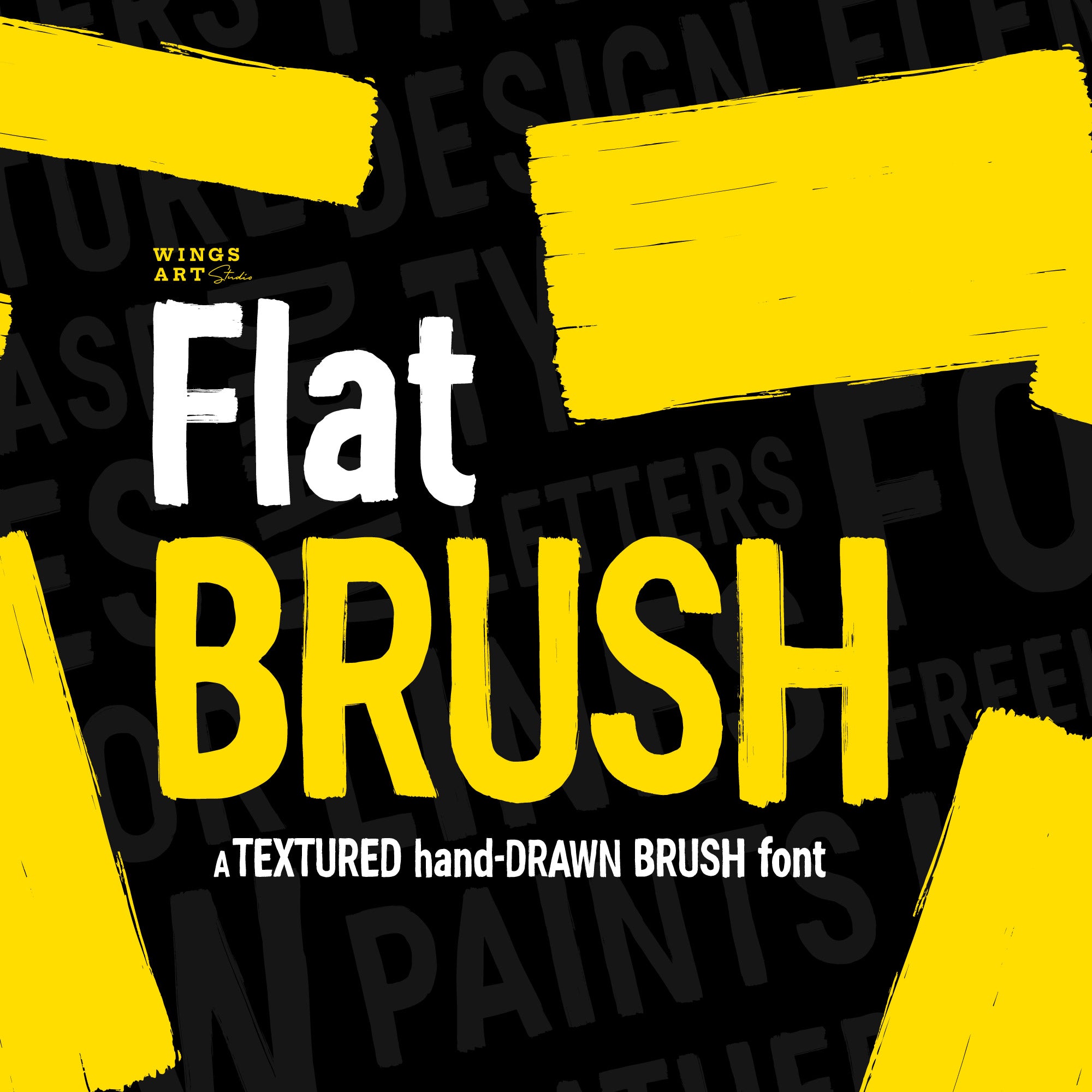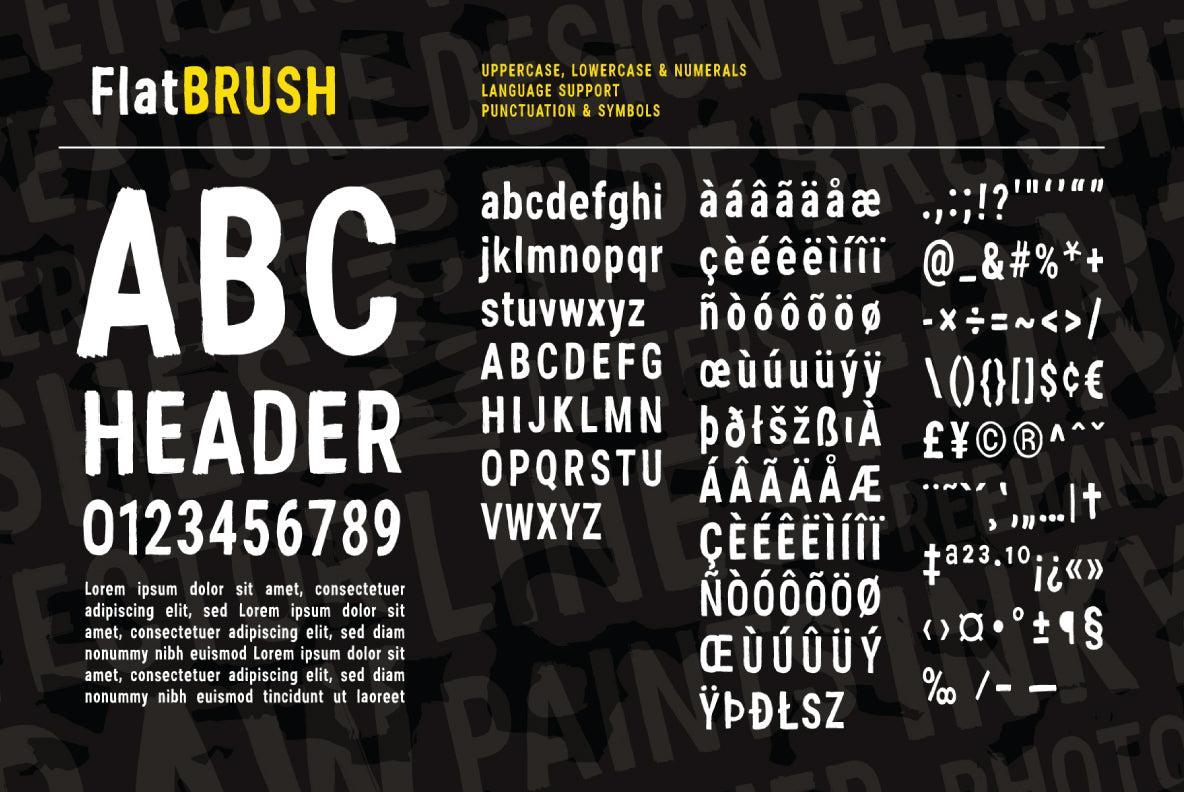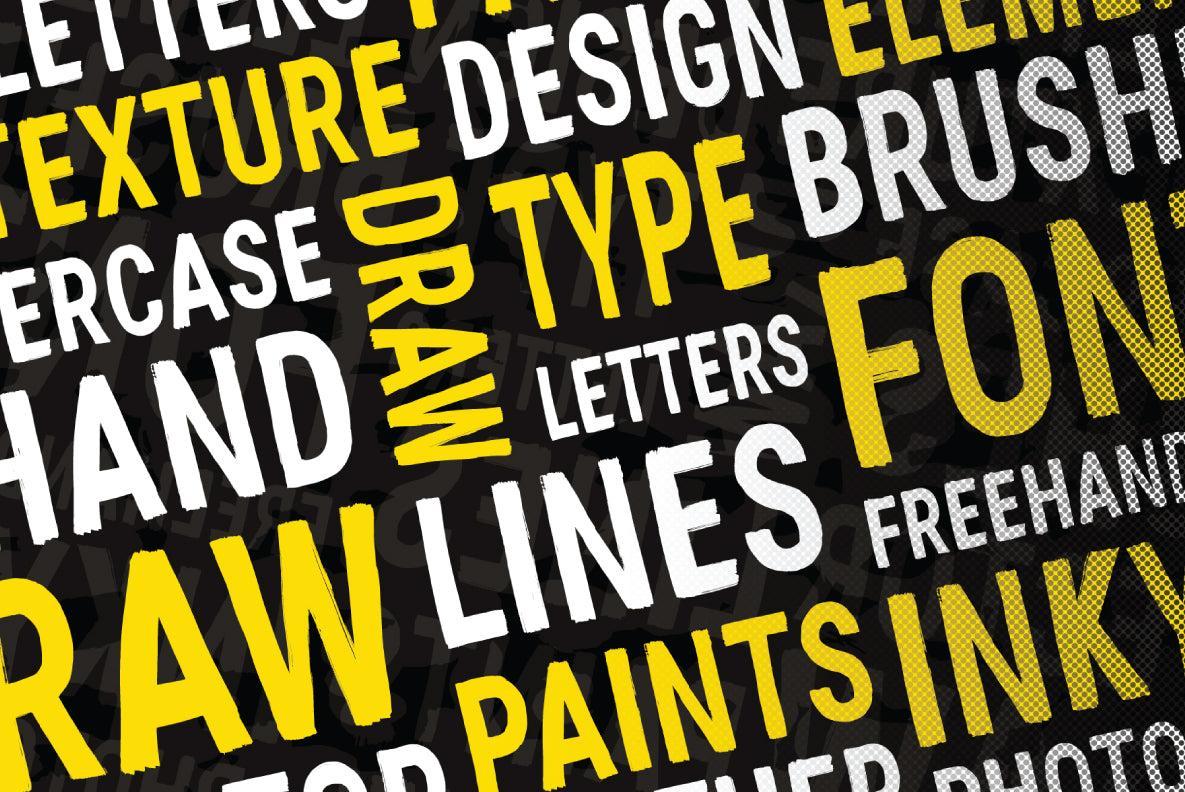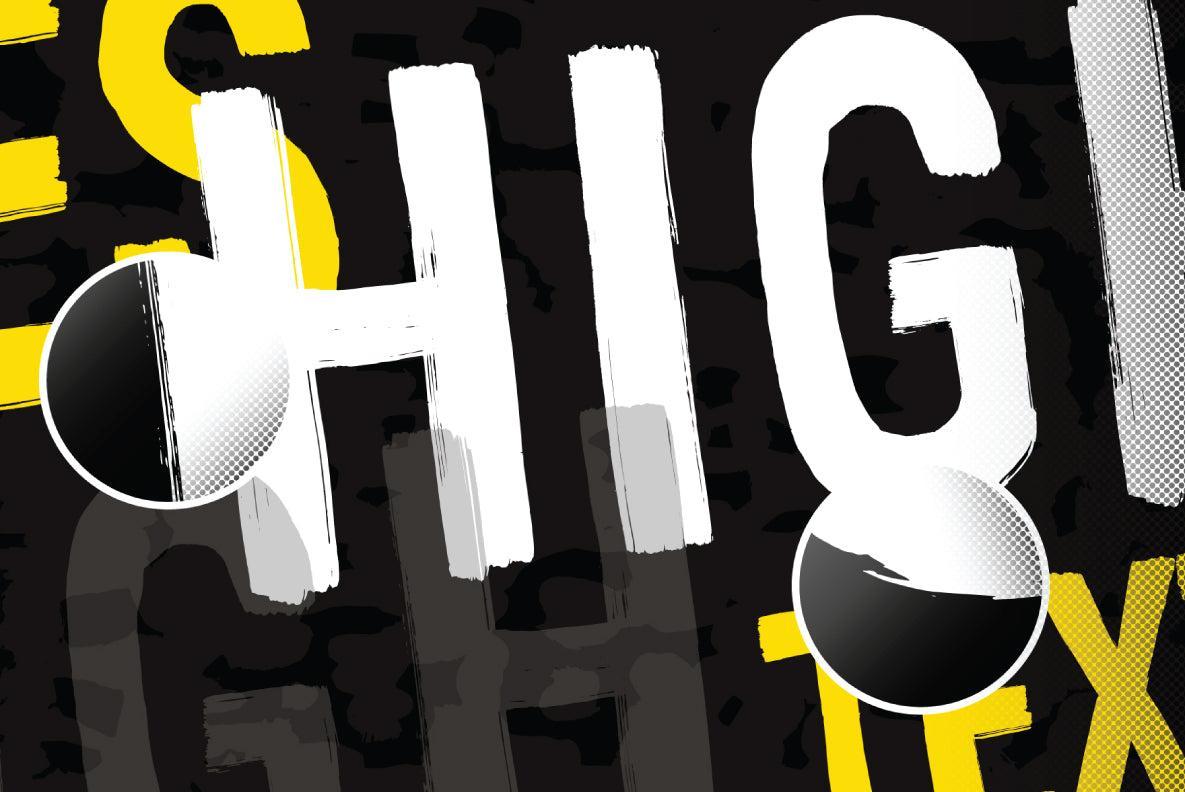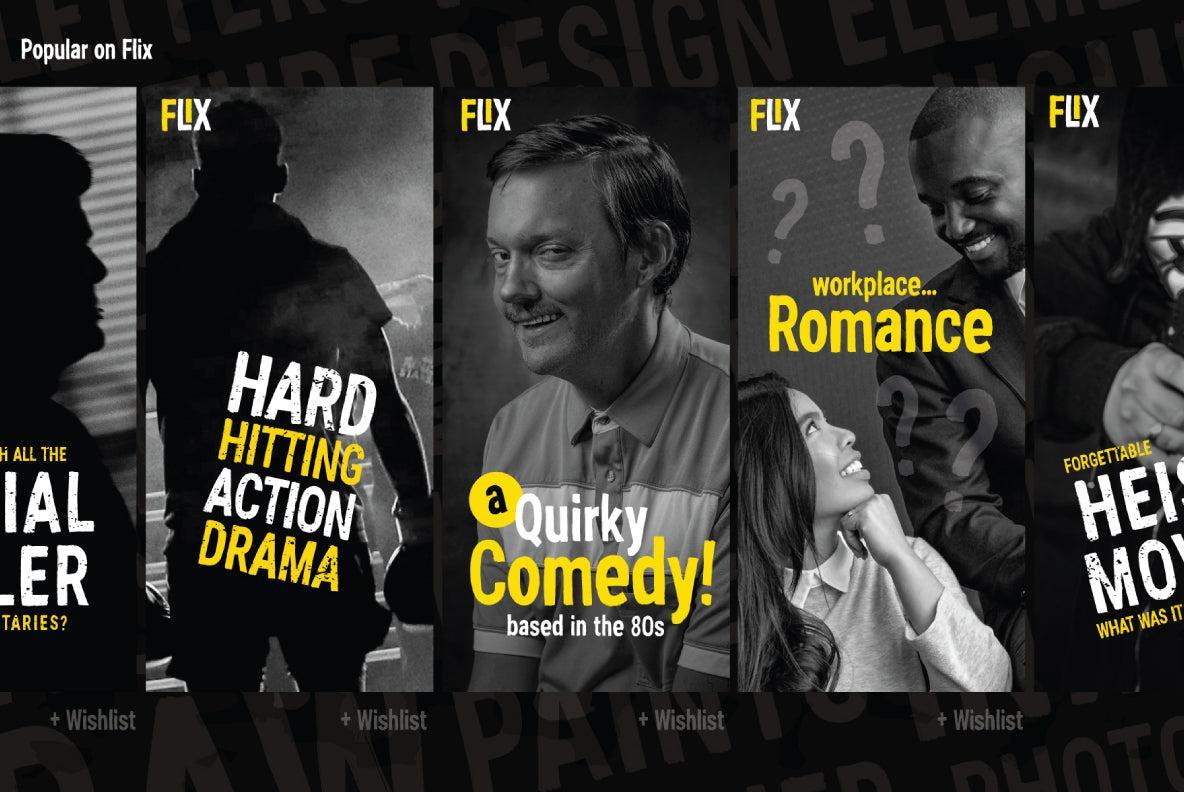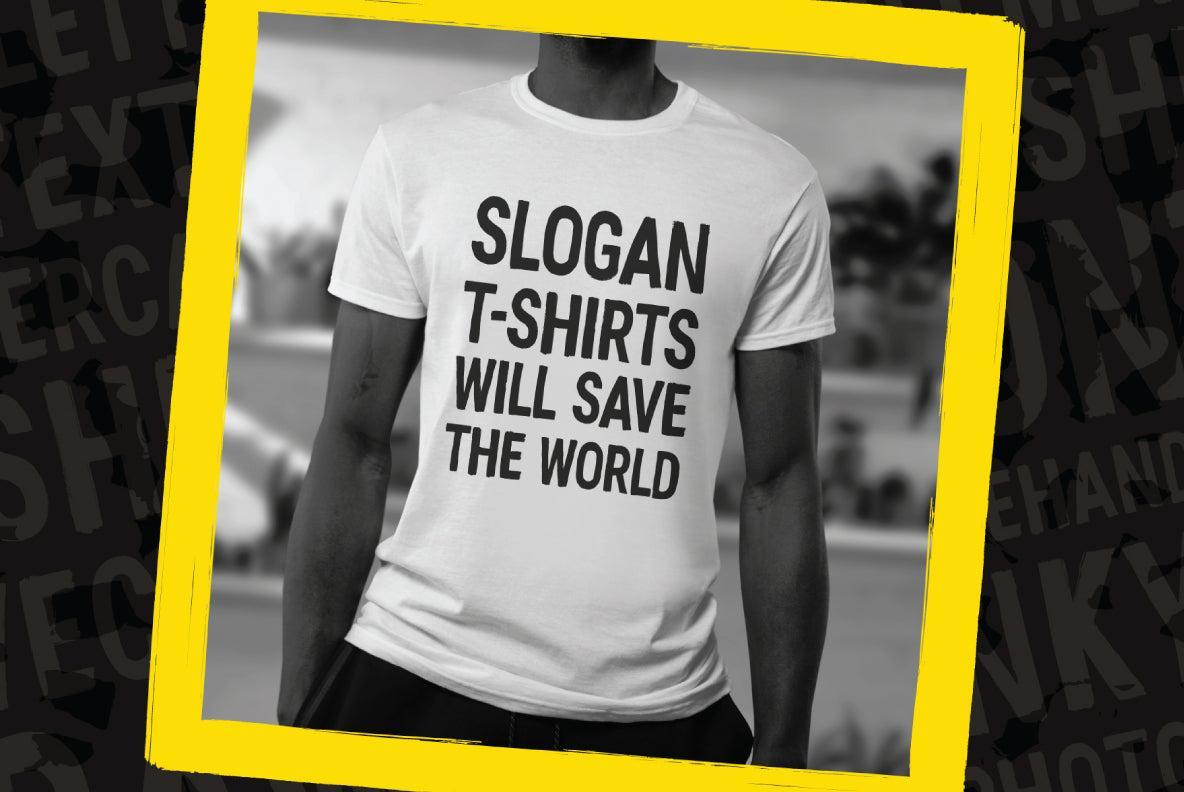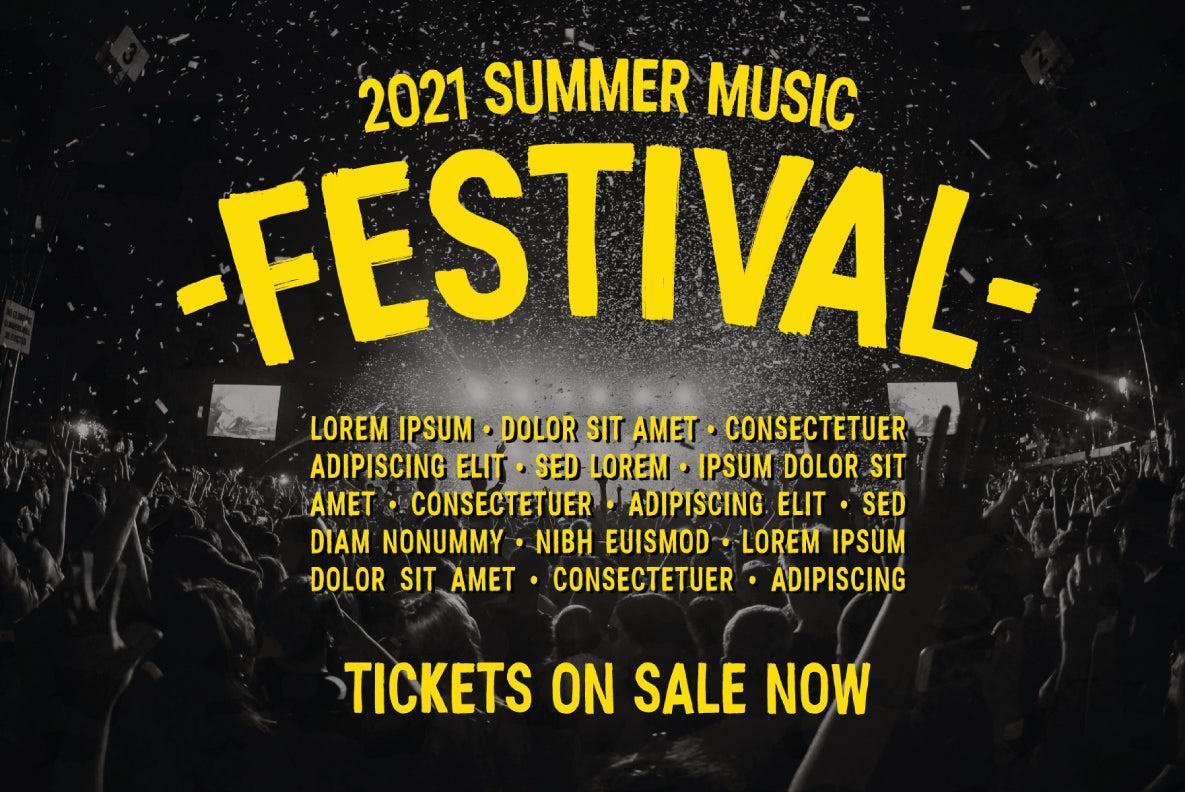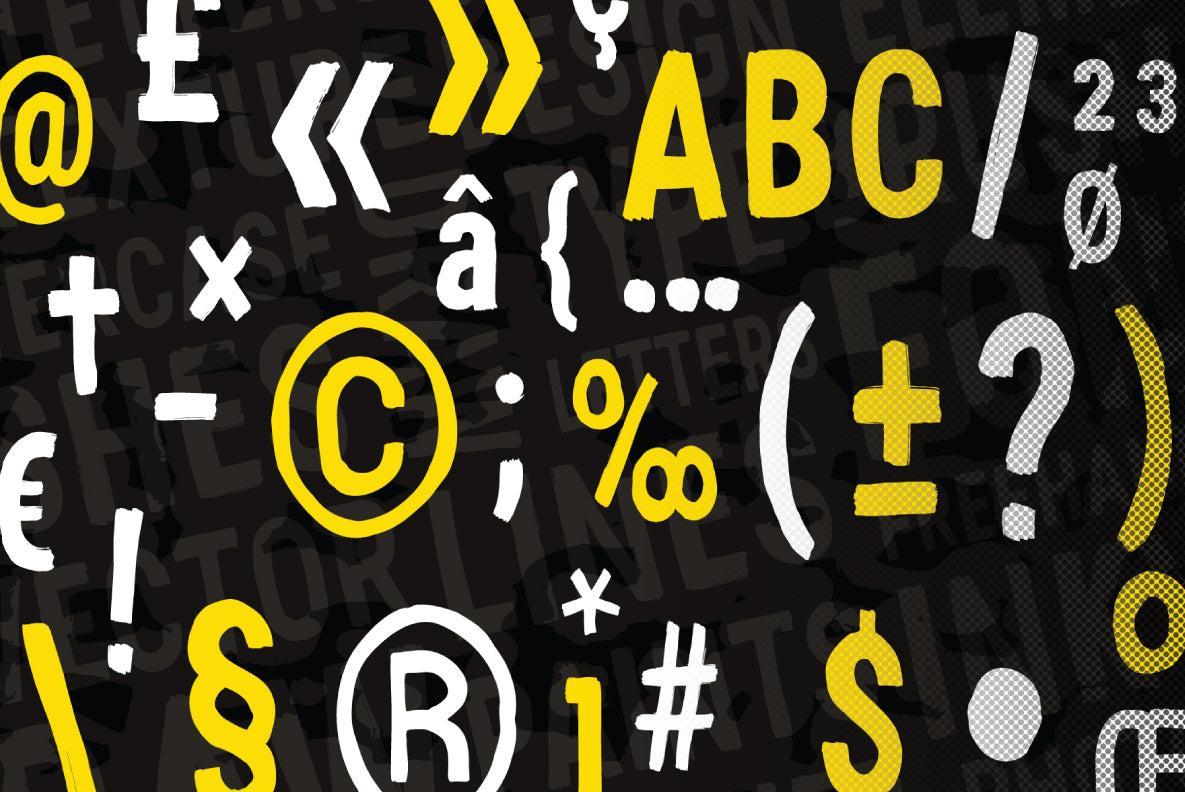
Flat Brush: Textured Brush Font
The Flat Brush: Textured Brush Font is a versatile hand-made typeface created with black ink and a sable brush, featuring both uppercase and lowercase letters, numerals, punctuation, and symbols. Its design offers a readable, textured appearance suitable for various applications.
Ideal for textured typography and hand-drawn design projects. Perfect for posters, branding, album covers, and titles, ensuring a unique and authentic visual appeal that enhances any creative work.